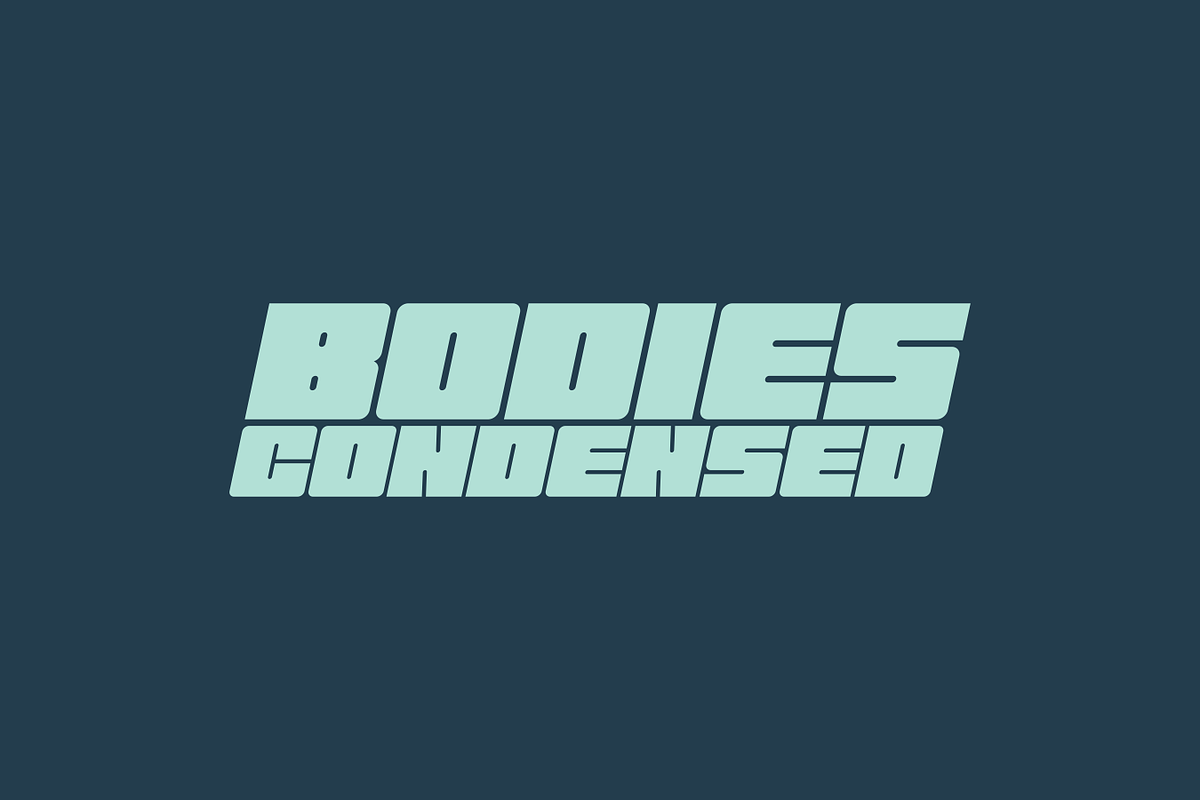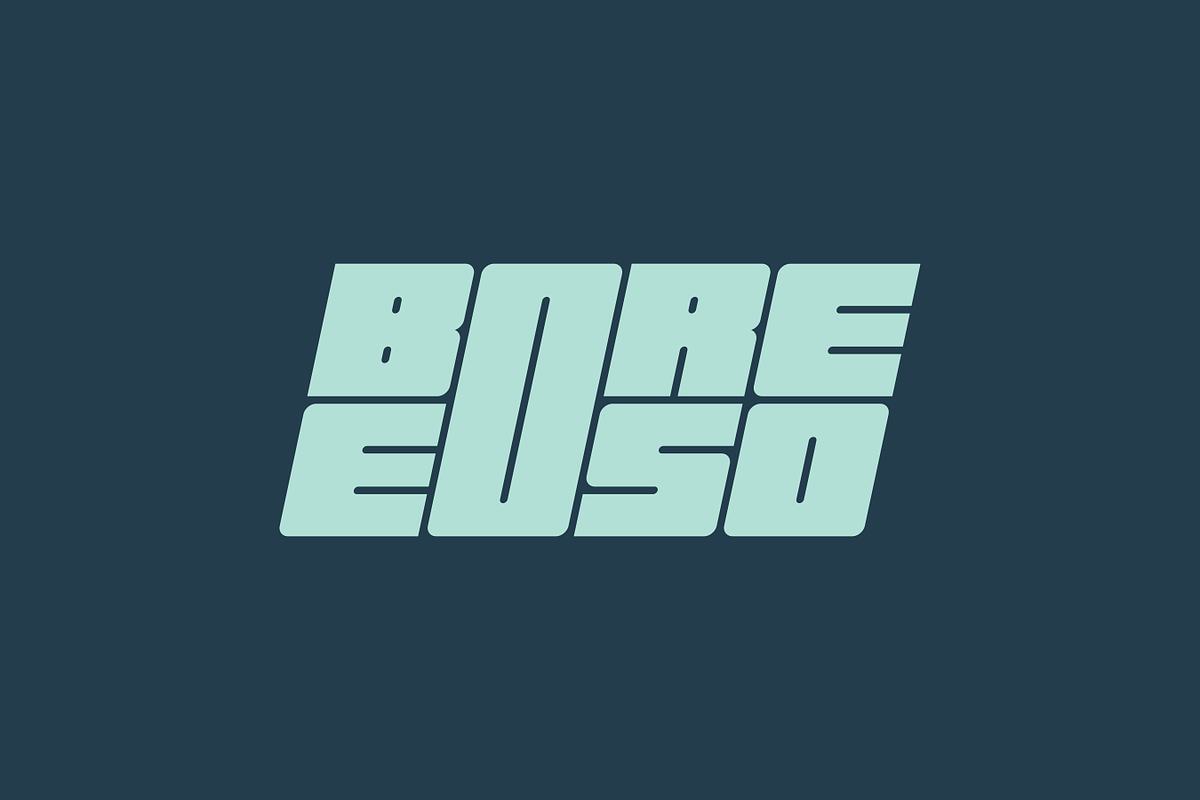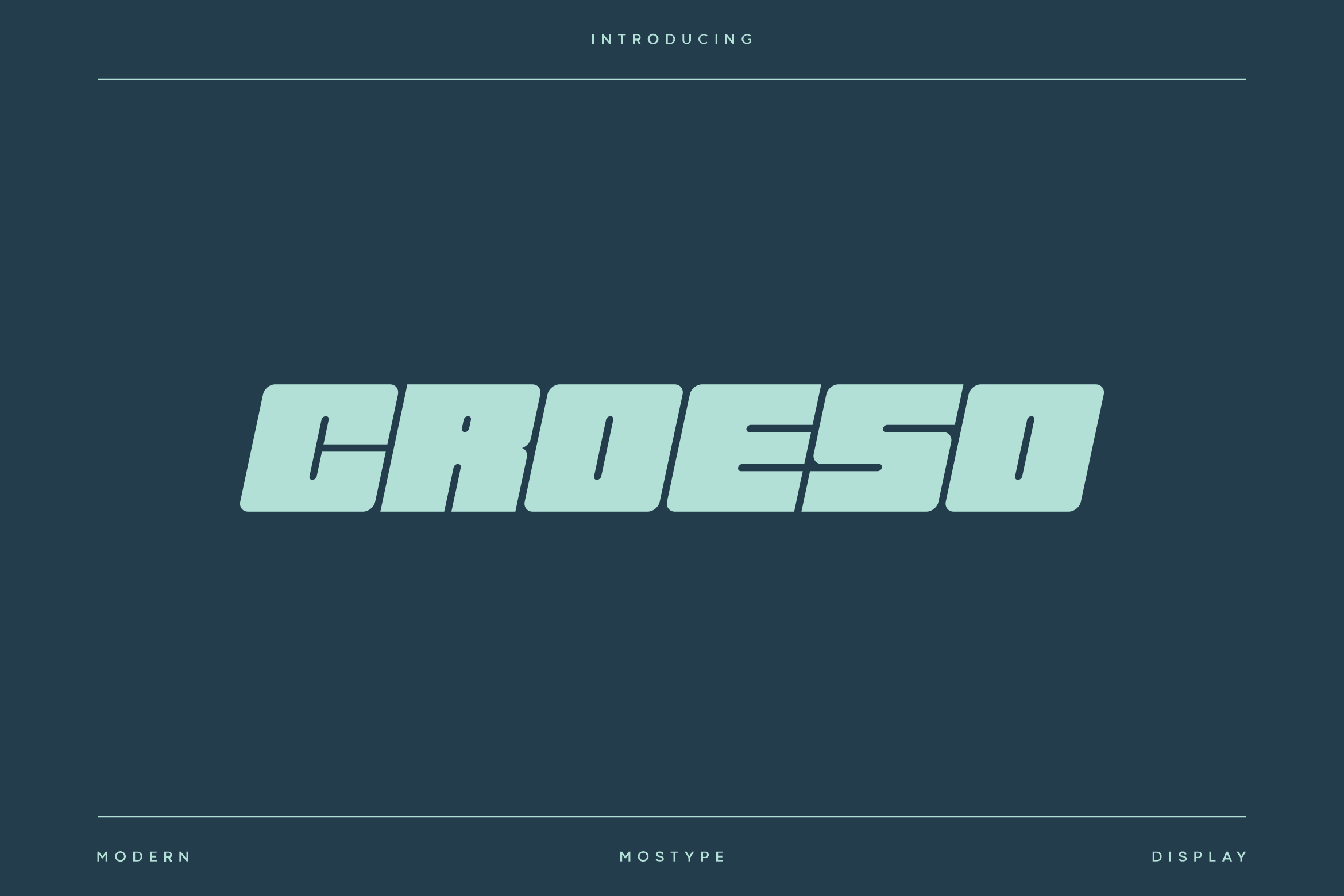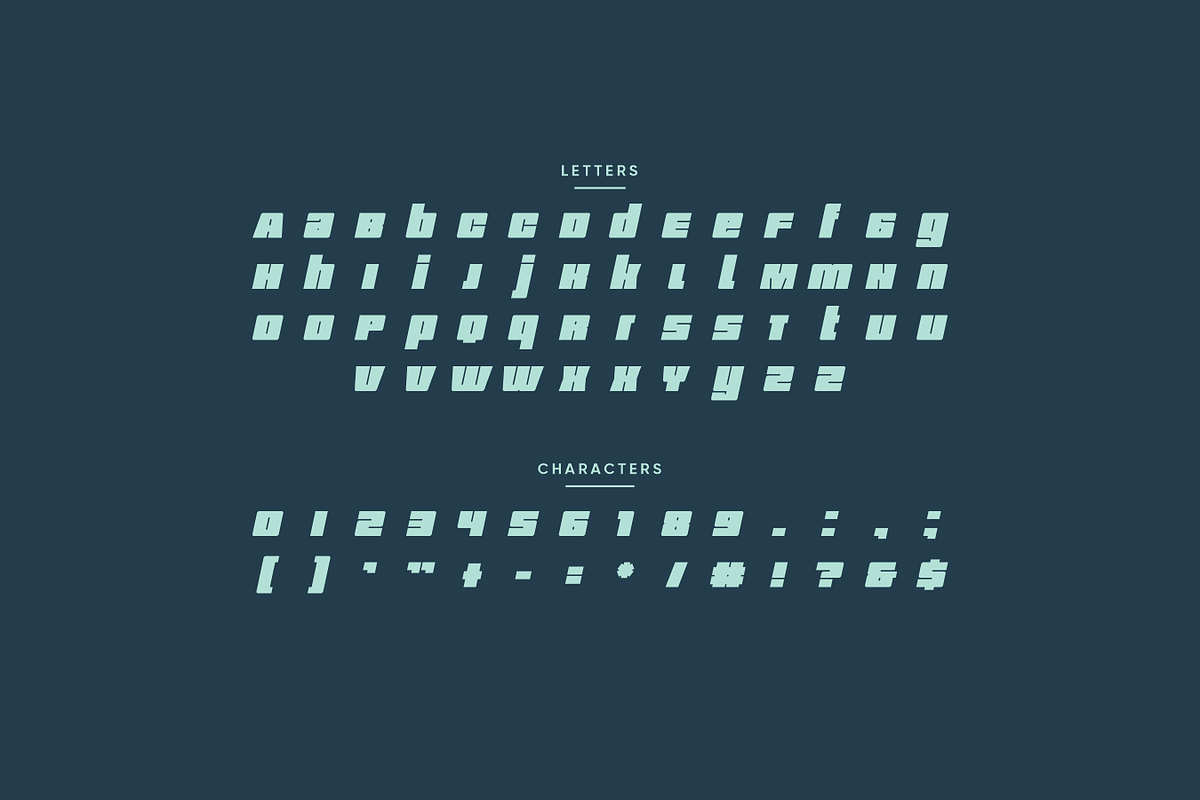
Croeso - Modern Sport Typeface
Croeso is a modern display font built specifically for sports branding, headline, and more prominent typography needs. This font comes with a new and fresh all-caps style, it will make your design more memorable, it’s perfect for adding this font to sports, tech, action and future themes. Croeso was created for bold action style and a modern feel, so enjoy creating any project that will showcase your main ideas.